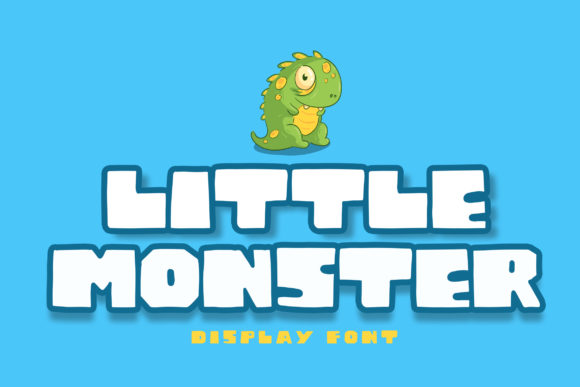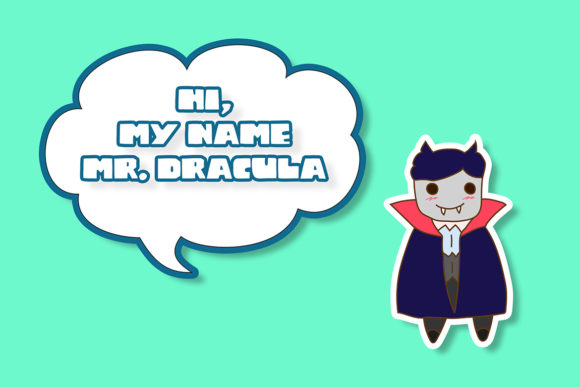
HomeSans Serif FontsLittle Monster Font Sans Serif Fonts Little Monster Font FacebookXPinterestWhatsApp Little Monster Font 1 of 11 About Little Monster Font Little Monster is a cute and amazing display font that will make children’s themed designs stand out! DOWNLOAD NOW People also explored Mashibelle Font Champina Font Happy Loves Font Tumbleweed Script Font Halloween Elf Font Hundred Duo Font Venture Explore Font Hanging Hearts Font Yalindha Font 269 0 TagsLittle Monster Font Previous articleChimoly FontNext articleForever Freedom Font LEAVE A REPLY Cancel reply Comment: Please enter your comment! Name:* Please enter your name here Email:* You have entered an incorrect email address! Please enter your email address here Website: Save my name, email, and website in this browser for the next time I comment. Personal Use Free Burgie Personal Use Free Read more about this font Dacquoise Personal Use Free Read more about this font Equestrain Personal Use Free Read more about this font Po Beef Personal Use Free Read more about this font BLOG Elegant Wedding Invitation Fonts – Handwritten & Script Fonts Elegant Wedding Invitation Fonts Your wedding day is one of the most important moments of your life, and every detail matters—including your invitation design. Our... Exploring Font Trends Best Fonts for T-Shirt Design – Top 2025 Picks Free Fonts Risk: Why Free Fonts Can Be Dangerous for Designers